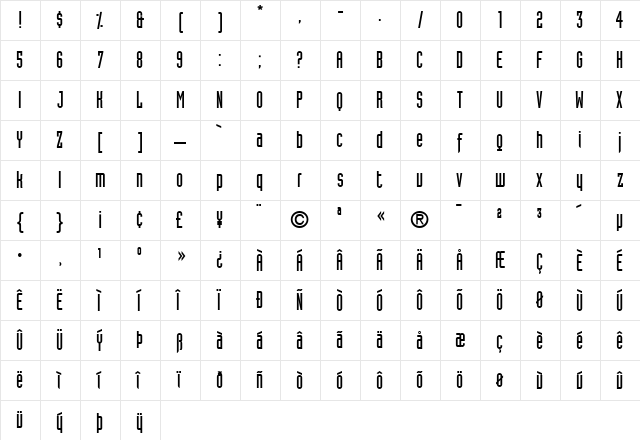
IndustriaSolidA Roman
IndustriaSolidA is a composed and adaptable typeface that performs quietly and consistently across a wide range of design contexts.